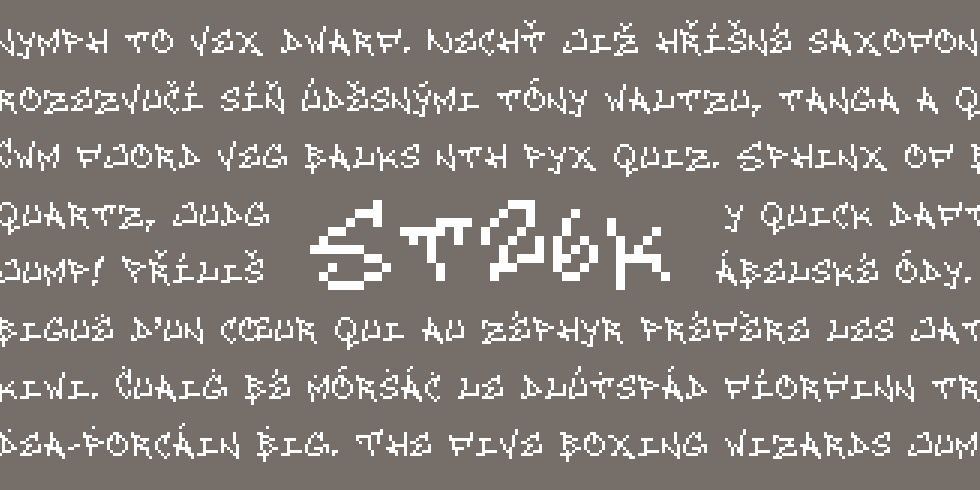
I went to school in NYC for several years (Brooklyn, specifically) and you know what you see a lot of in NYC? Graffiti. Tons of it. Buildings and signs, windows and posters, subway walls and subway cars, temporary walls and fences–all prime targets for graffiti!
There are plenty of gorgeous legal graffiti murals, as well as gorgeous illegal graffiti murals, but the thing you’ll see most often are tags. Little signatures, stylized names scrawled quickly in corners to avoid being caught.
Today’s new font is inspired by your typical graffiti, quick and messy. Honestly, of all the fonts I’ve created, this is probably the least practical/useful–especially in comparison to my last few more utilitarian releases. But hey, it was fun to put together!
St26k doesn’t mean anything, by the way. I just wanted something short & unique, like a real tag.